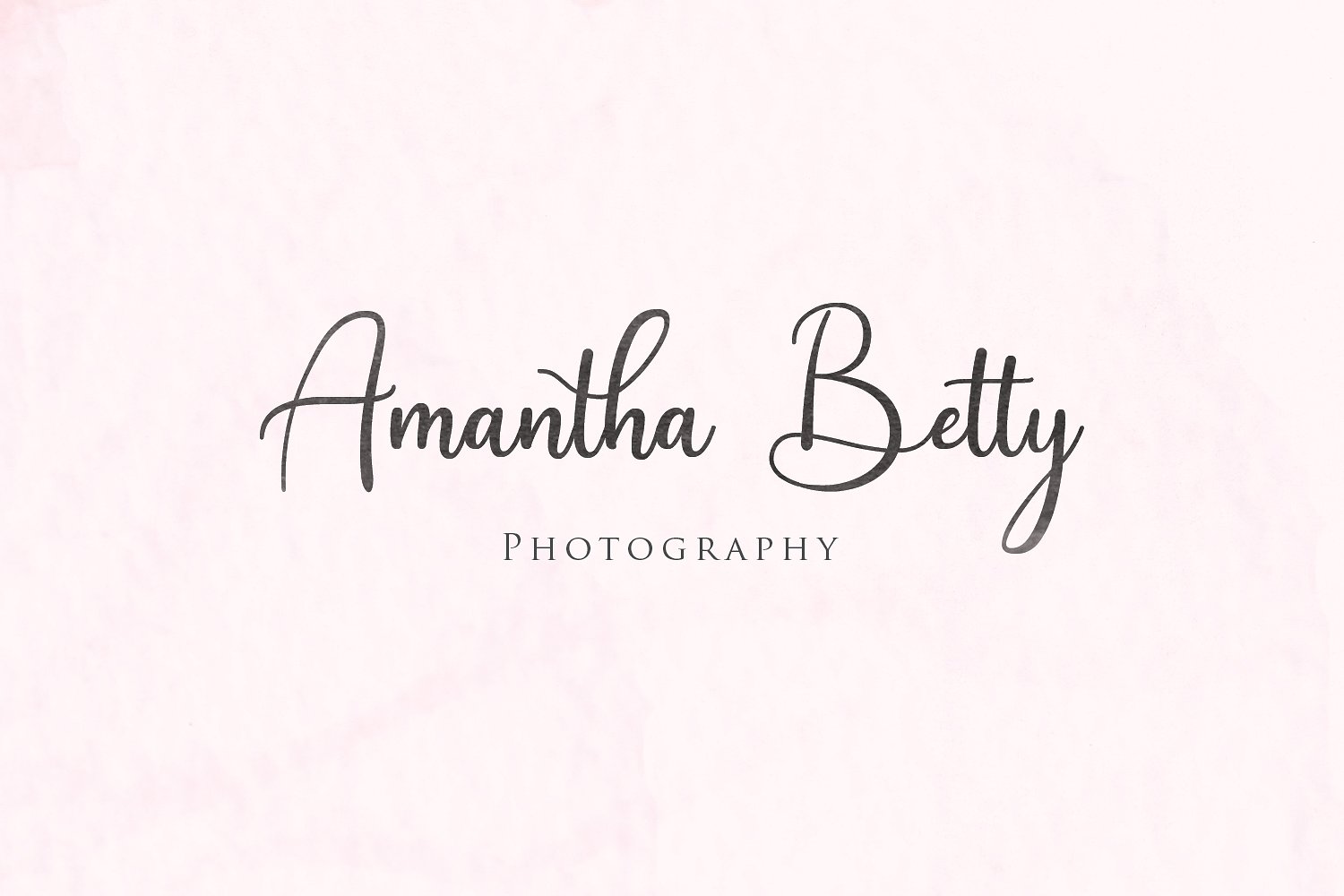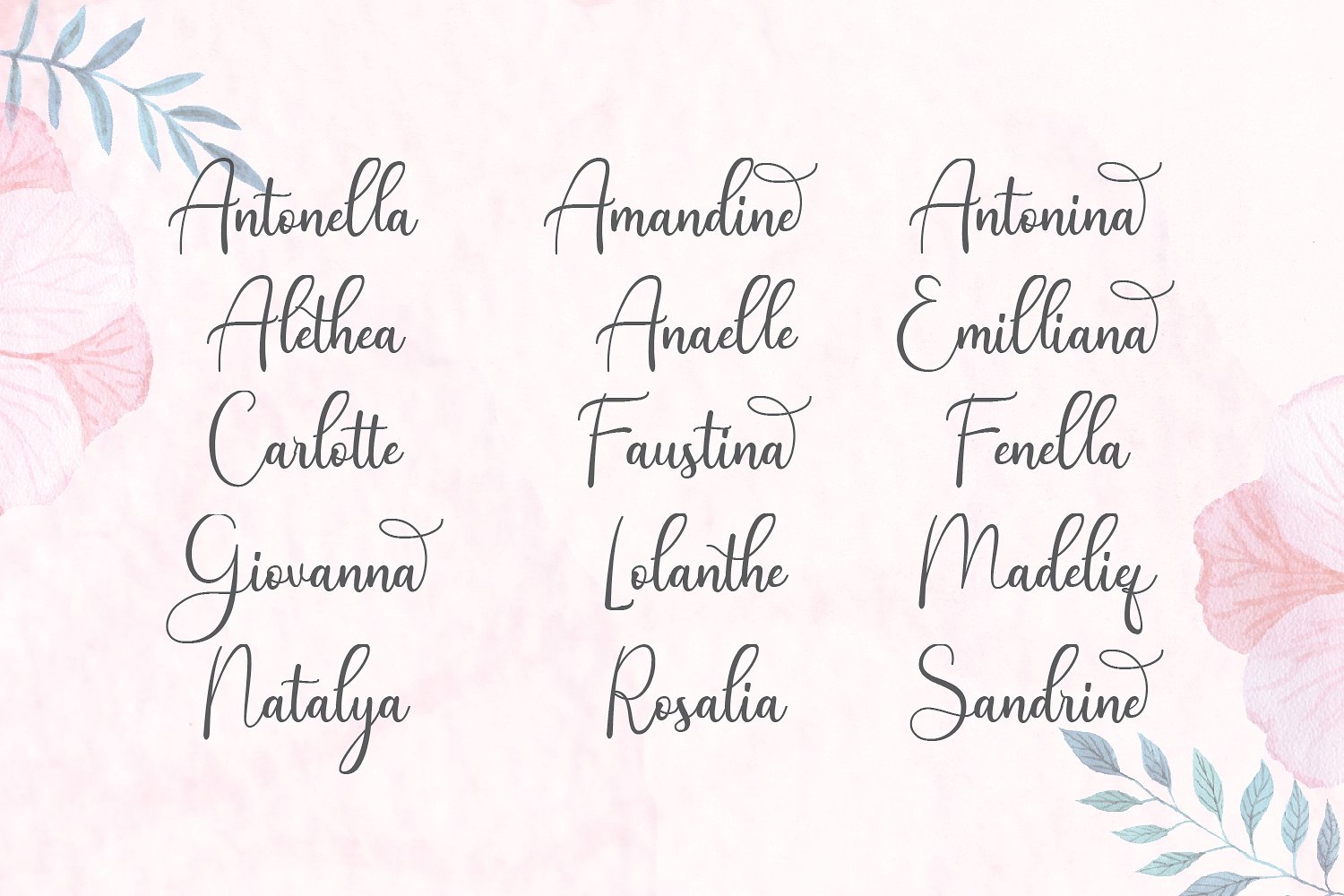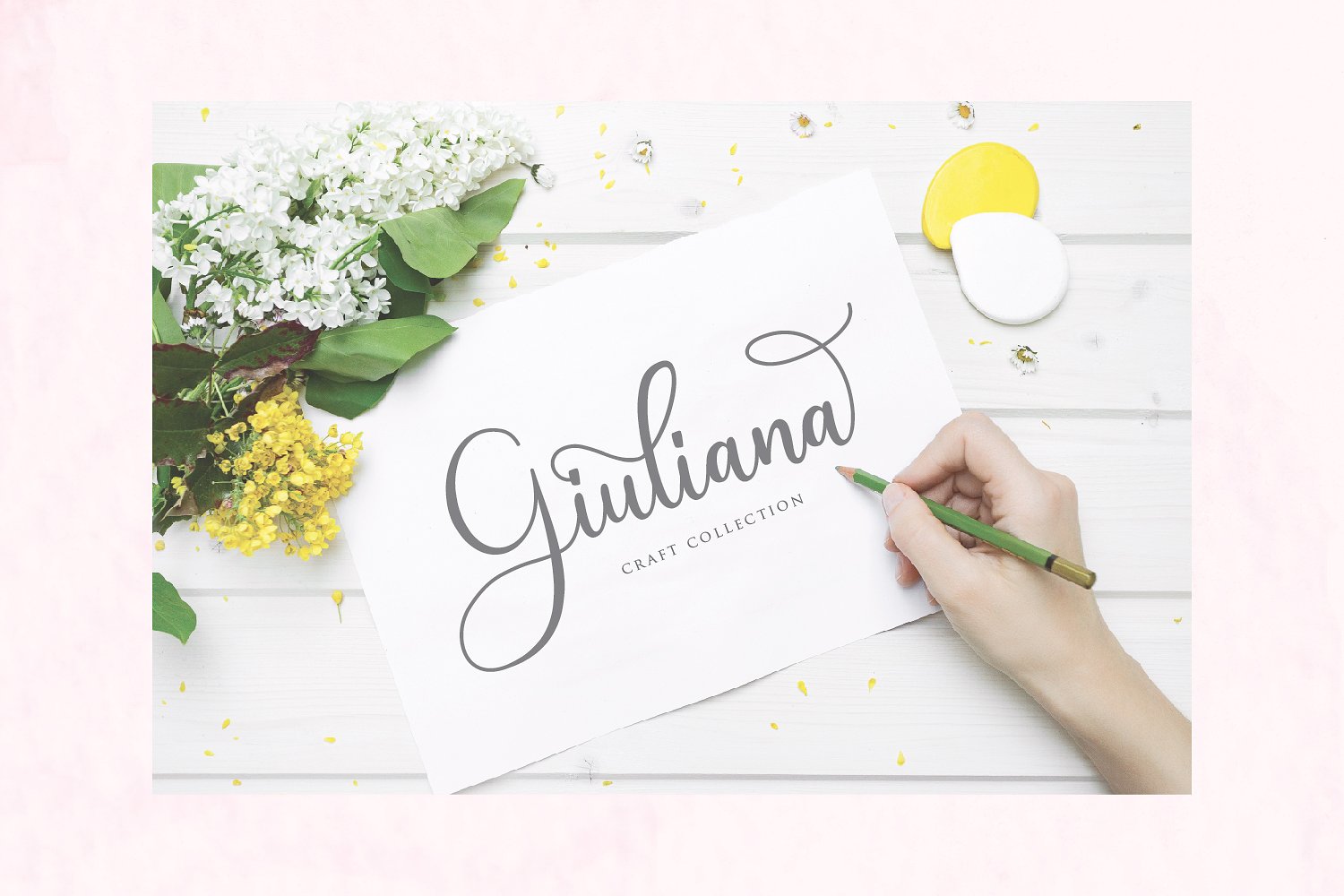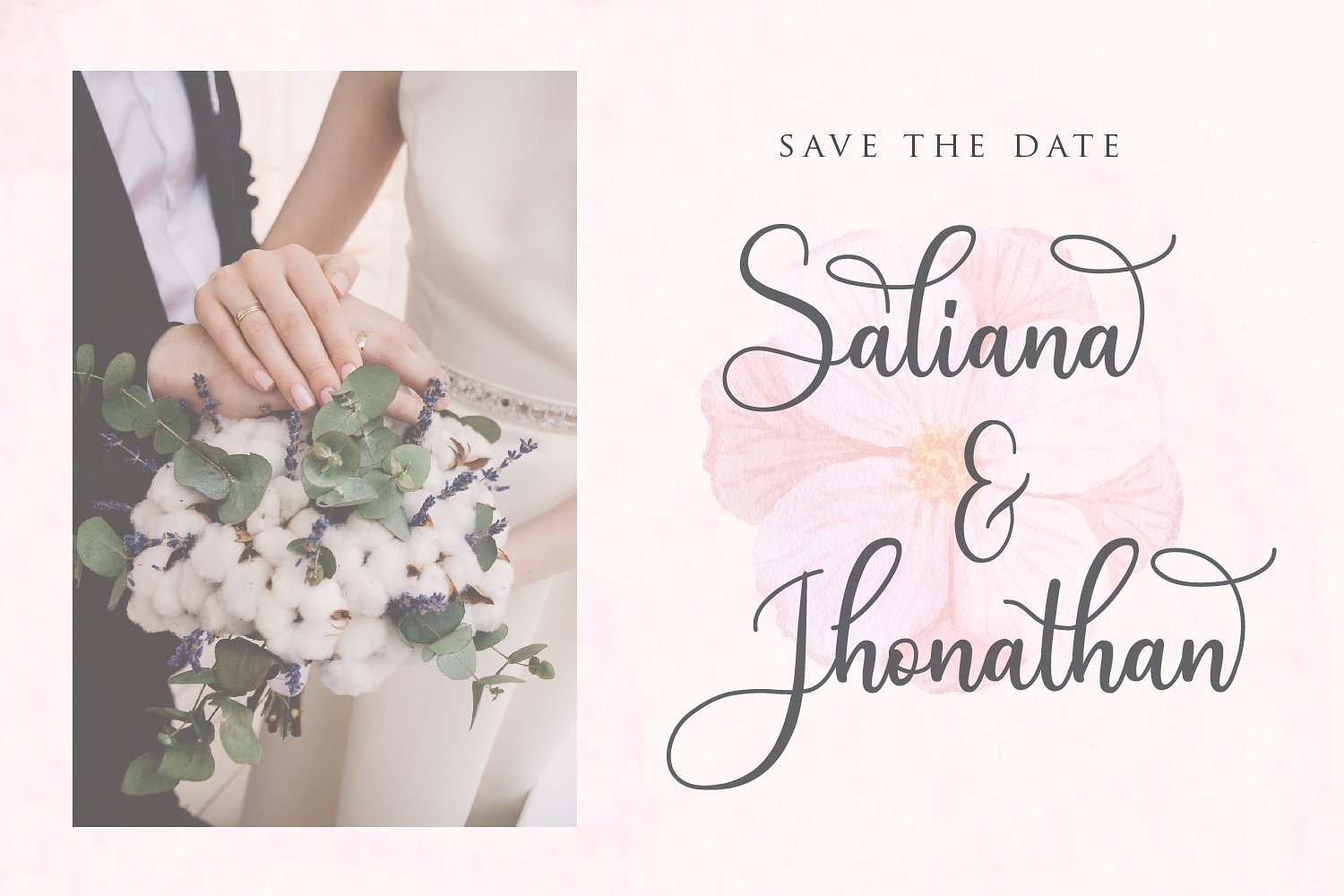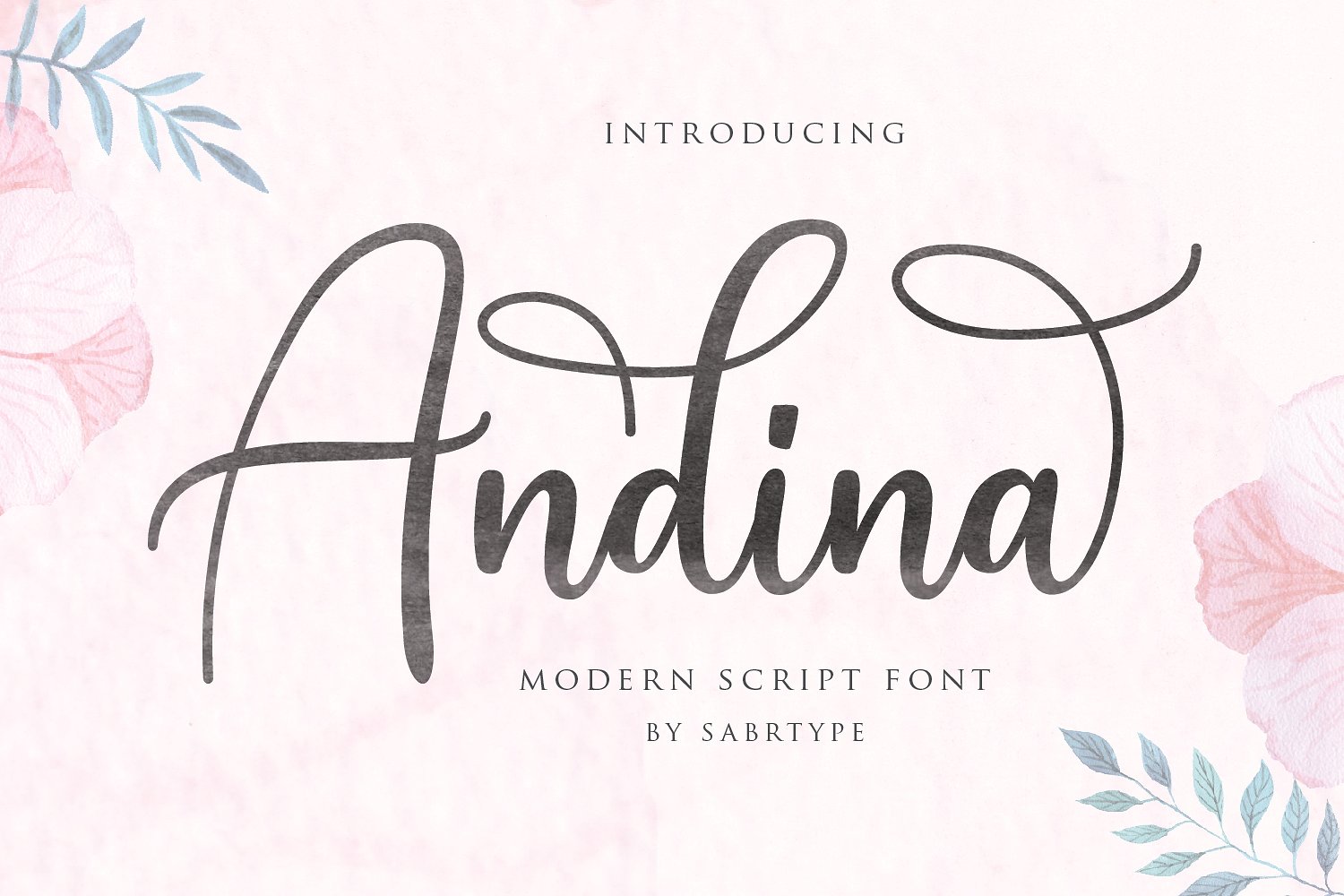
Andina Script Font
Hello world..!! I am very happy and happy to be introduced to you the best typography, and today is a modern script  typeface, simple and elegant style. Introducing Andina Font. It is was designed and shared by Sabrtype. Andina font is perfect for many different project such as logos & branding, headline, invitation, stationery, wedding designs, social media posts, advertisements, product packaging, product designs, label, photography, watermark, special events or anything.